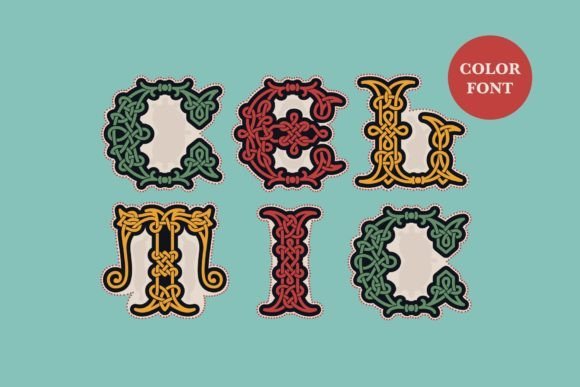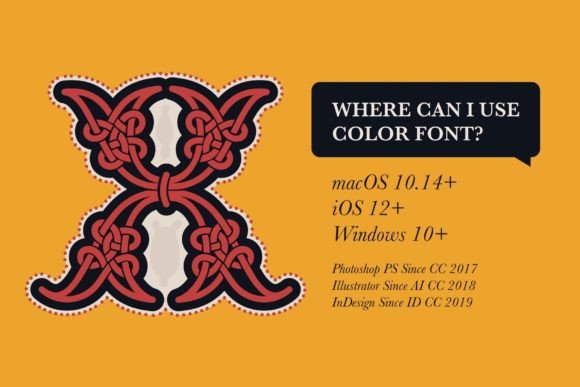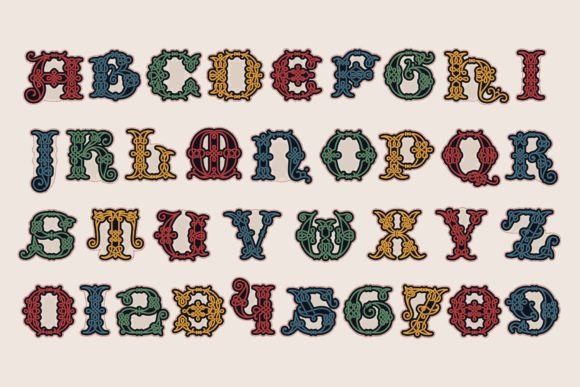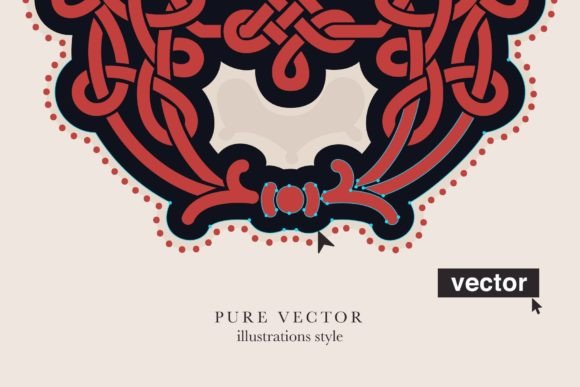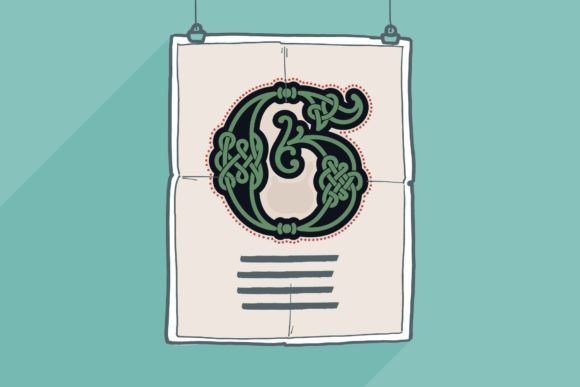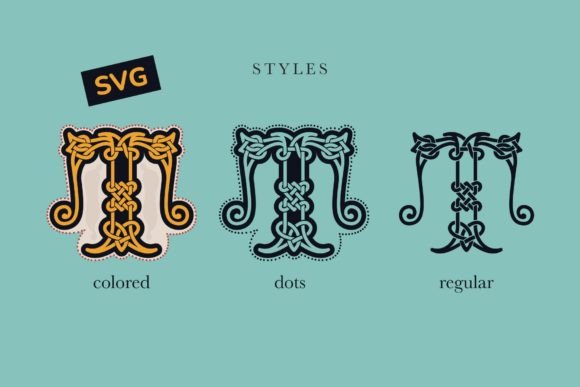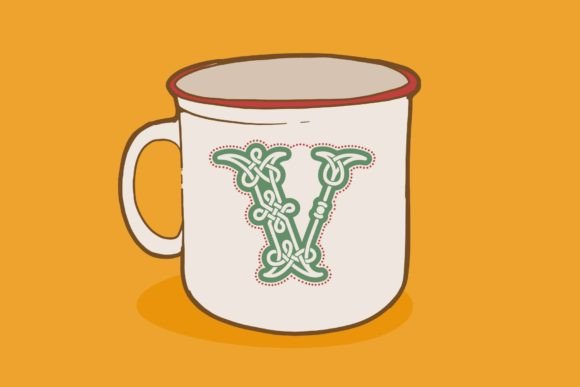
Celebrate the Magic of Celtic Design with Celtic Nova Font
Imagine you’re sitting by a roaring fire, surrounded by the mystique of ancient Celtic rituals. The flickering flames dance across the walls, casting shadows that seem to tell a story of their own. You’re inspired to create a design that captures the essence of this mystical moment, something that transports viewers to a world of wonder and magic. That’s where the Celtic Nova Font comes in – a unique and intricate color font that will add a touch of enchantment to your projects.
This beautiful font is designed to elevate your Celtic or medieval-themed designs, making them stand out from the crowd. With its intricate details and vibrant colors, the Celtic Nova Font is a valuable asset for designers looking to add a touch of whimsy and fantasy to their work. Whether you’re creating a logo, a poster, or a digital artwork, this font is sure to bring your designs to life.
Celtic Nova Font Key Features
- Font Family: Celtic Nova Font comes in a single font family, designed to evoke the mystique of ancient Celtic scripts.
- Character Set: The font includes a wide range of characters, including Latin, Greek, and Cyrillic alphabets, as well as various punctuation marks and symbols.
- Size: The font is available in multiple weights, ranging from Light to Extra Bold, allowing designers to achieve a range of visual effects.
- Resolution: Designed for use at high resolutions, Celtic Nova Font is suitable for both print and digital applications, including signage, branding, and publishing.
- Unique Characteristics: The font features intricate knotwork and interlacing patterns, reminiscent of ancient Celtic art, adding a touch of mysticism and elegance to any design.
Celtic Nova Font Review
Overall, I’m quite impressed with the Celtic Nova Font, but like any font, it has its strengths and weaknesses. Let’s dive into what works well and what doesn’t.
- The font’s unique blend of Celtic and modern elements makes it stand out from the crowd. It’s perfect for designers looking for something fresh and exciting.
- The font is highly customizable, with a range of weights and styles to choose from. This makes it suitable for a wide range of applications, from body text to headings.
- The font is well-suited for digital use, with clear and legible characters that are easy to read even at small sizes.
- The font may not be the best choice for print use, as the characters can be a bit pixelated at small sizes.
- The font’s unique style may not be to everyone’s taste, so it’s essential to test it with your target audience before committing to it.
- The font’s weight and style options can be a bit overwhelming, so it’s essential to choose the right combination for your project.
In conclusion, the Celtic Nova Font is a great choice for designers looking for something unique and modern. While it may have some limitations, it’s well-suited for digital use and offers a range of customization options. With a bit of care and attention to detail, this font can help take your designs to the next level.